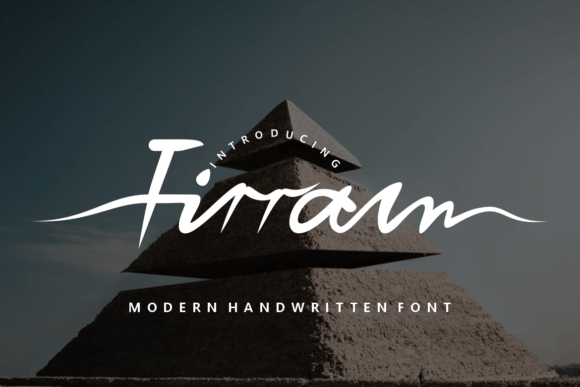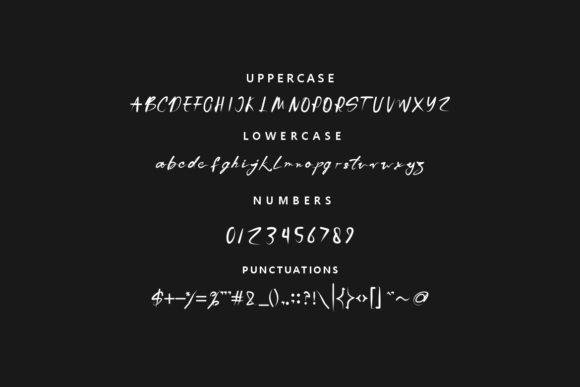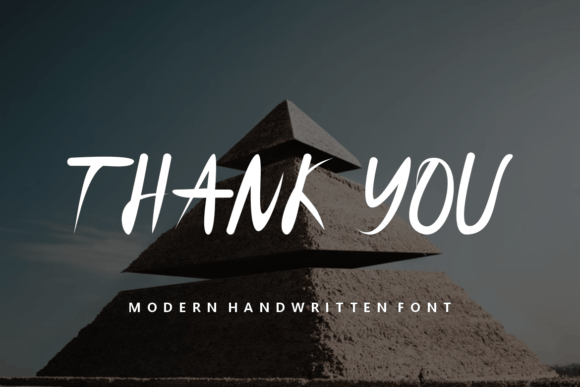
Firraun Font: Add a Touch of Whimsy to Your Designs
In the world of typography, fonts play a crucial role in conveying the tone and personality of a design. If you’re looking for a font that can add a dash of quirkiness and personality to your projects, look no further than Firraun Font. This handwritten font is perfect for designers and crafters who want to bring a touch of natural charm to their work.
What is Firraun Font?
Firraun Font is a quirky handwritten font that is made by handwriting, instantly bringing out the natural characteristics of your project. The font’s unique, hand-crafted design gives it a distinct personality that is sure to capture the attention of your audience. Whether you’re working on a website, logo, invitation, or any other design project, Firraun Font is the perfect choice.
Characteristics of Firraun Font
Firraun Font has several characteristics that make it stand out from other fonts. Some of its key features include:
- Handwritten design: Firraun Font is created by handwriting, giving it a natural and unique look.
- Quirky and playful: The font has a quirky and playful personality that is perfect for designs that require a touch of whimsy.
- Versatile: Firraun Font can be used for a wide range of design projects, from websites and logos to invitations and home decor.
Uses of Firraun Font
Firraun Font is a versatile font that can be used for a variety of design projects. Some of the most popular uses of this font include:
- Websites: Firraun Font is perfect for websites that require a touch of personality and whimsy.
- SVG designs: The font can be used to create unique and eye-catching SVG designs.
- Home decor: Firraun Font can be used to create beautiful and personalized home decor items, such as wall art and signs.
- Branding: The font can be used to create unique and memorable brand identities.
- Blogs: Firraun Font is perfect for bloggers who want to add a touch of personality to their blog.
- Logos: The font can be used to create unique and eye-catching logos.
- Invitations: Firraun Font is perfect for creating personalized and beautiful invitations.
Benefits of Using Firraun Font
There are several benefits to using Firraun Font in your design projects. Some of the most significant advantages include:
- Unique and eye-catching: Firraun Font is a unique and eye-catching font that can help your designs stand out.
- Personal touch: The font’s handwritten design gives it a personal touch that can help you connect with your audience.
- Versatile: Firraun Font can be used for a wide range of design projects, making it a great addition to your font library.
Tips for Using Firraun Font
Here are some tips for using Firraun Font in your design projects:
- Use it sparingly: Firraun Font is a bold font, so it’s best to use it sparingly to avoid overwhelming your design.
- Pair it with other fonts: The font can be paired with other fonts to create a unique and eye-catching combination.
- Experiment with colors: Firraun Font can be used with a variety of colors to create a unique and eye-catching design.
Firraun Font is a quirky handwritten font that can add a touch of whimsy and personality to your design projects. With its unique, hand-crafted design and versatile uses, it’s perfect for designers and crafters who want to bring a touch of natural charm to their work. Whether you’re working on a website, logo, invitation, or any other design project, Firraun Font is a great choice.